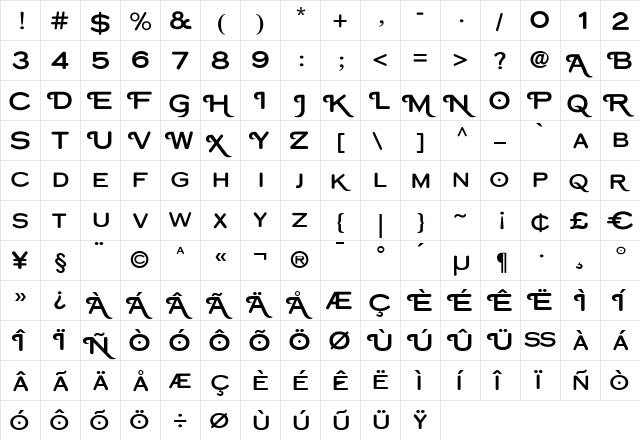
Copperplate Classic Round Swash Regular
Design Context for Copperplate Classic Round Swash Typeface
Copperplate Classic Round Swash has the warm character of retro typography — evoking diners, record sleeves, and the golden age of print advertising.
Perfect for vintage-inspired branding, retro packaging, nostalgia campaigns, and period-accurate editorial design.
Font Pairing: Combine Copperplate Classic Round Swash with a simple slab or neutral sans — period-accurate companions reinforce the vintage feel without competing for attention.
Pro Tip: Use Copperplate Classic Round Swash for headlines and pull quotes rather than body copy — its personality is best appreciated in short, focused bursts.